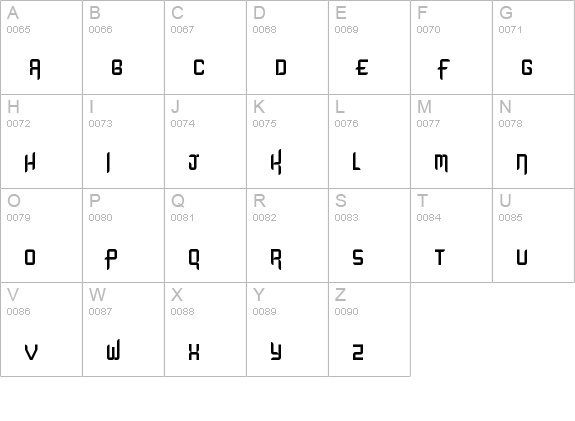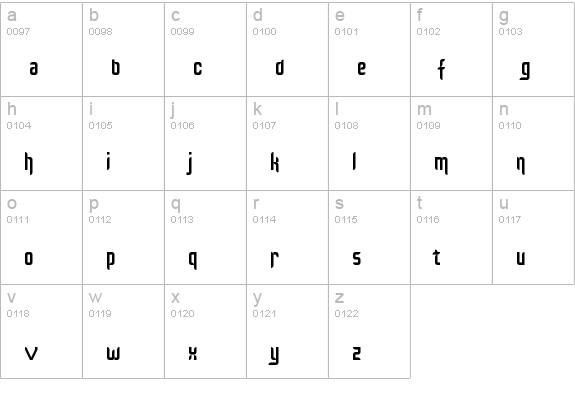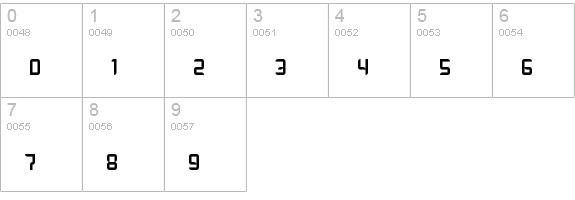
Kinglify Regular Font Details
Kinglify Regular is the standard, neutral variant in the Kinglify typeface family \xE2\x80\x94 well suited to general body text, paragraphs, and standard typographic work.
Kinglify Regular is a sophisticated and elegant font that exudes regal charm and timeless appeal. With its clean lines and classic design, this font is perfect for adding a touch of royalty to your projects. Whether you're designing invitations, logos, or branding materials, Kinglify Regular will elevate your work to the next level. The best part? Kinglify Regular is completely free to download at FontsMarket.com. So go ahead and give your designs the royal treatment they deserve with this exquisite font. Let Kinglify Regular add a touch of grandeur and prestige to your creations today.